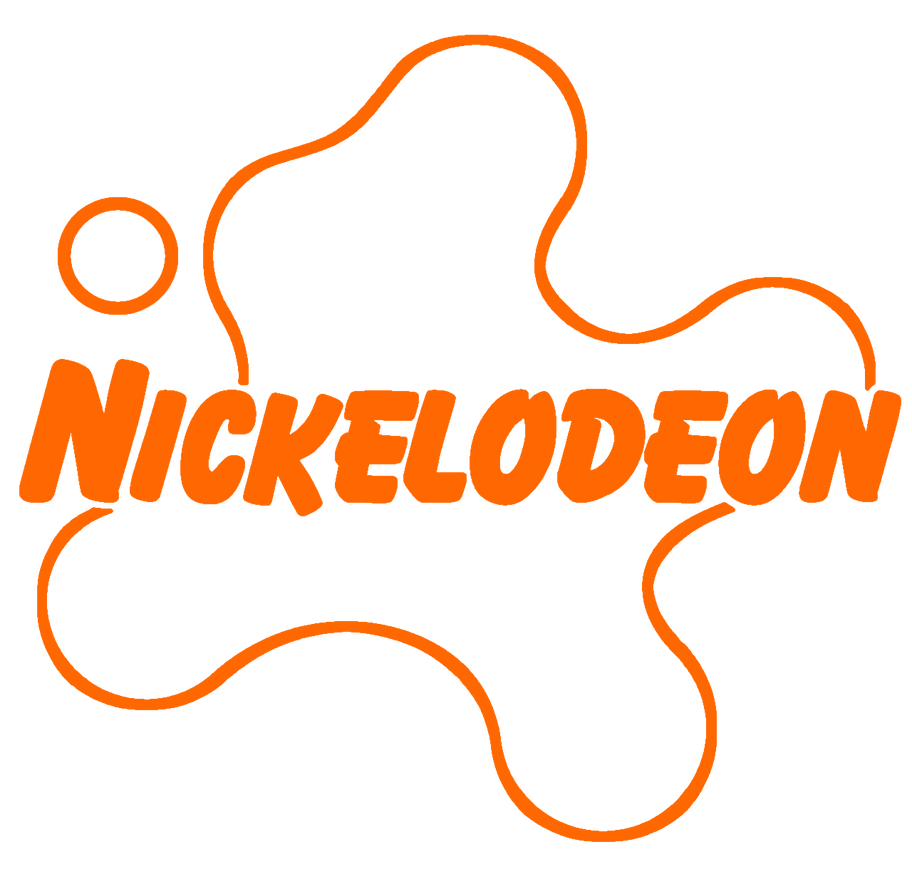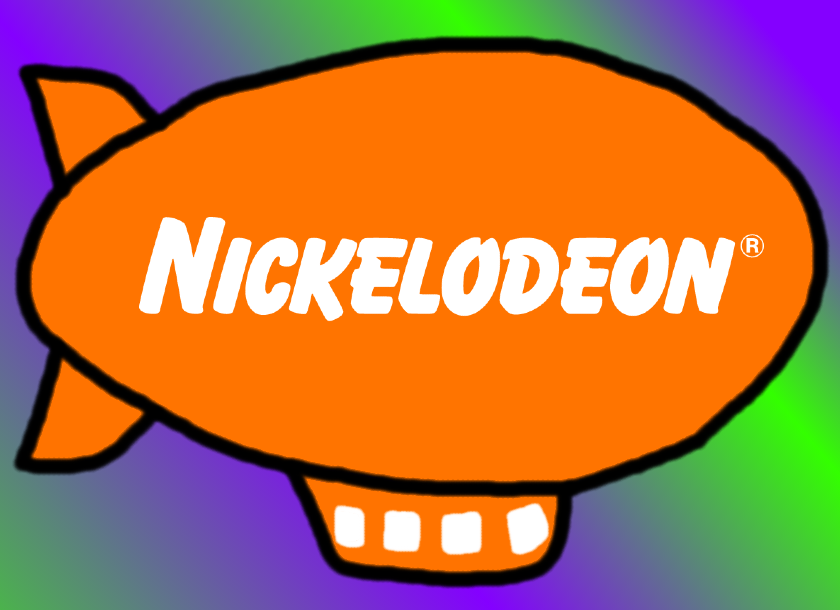
Balloon Font Nickelodeon - Balloon contains 8 styles and. Balloon font family designed by unknown designer has a total of 1 different styles. “ balloon ” is the font used in nickelodeon logo. You can download the balloon font to your computer or. Balloon was published by urw type foundry. Every font is free to download! Click to find the best 20 free fonts in the nickelodeon style.
“ Balloon ” Is The Font Used In Nickelodeon Logo.
Balloon Font Family Designed By Unknown Designer Has A Total Of 1 Different Styles.